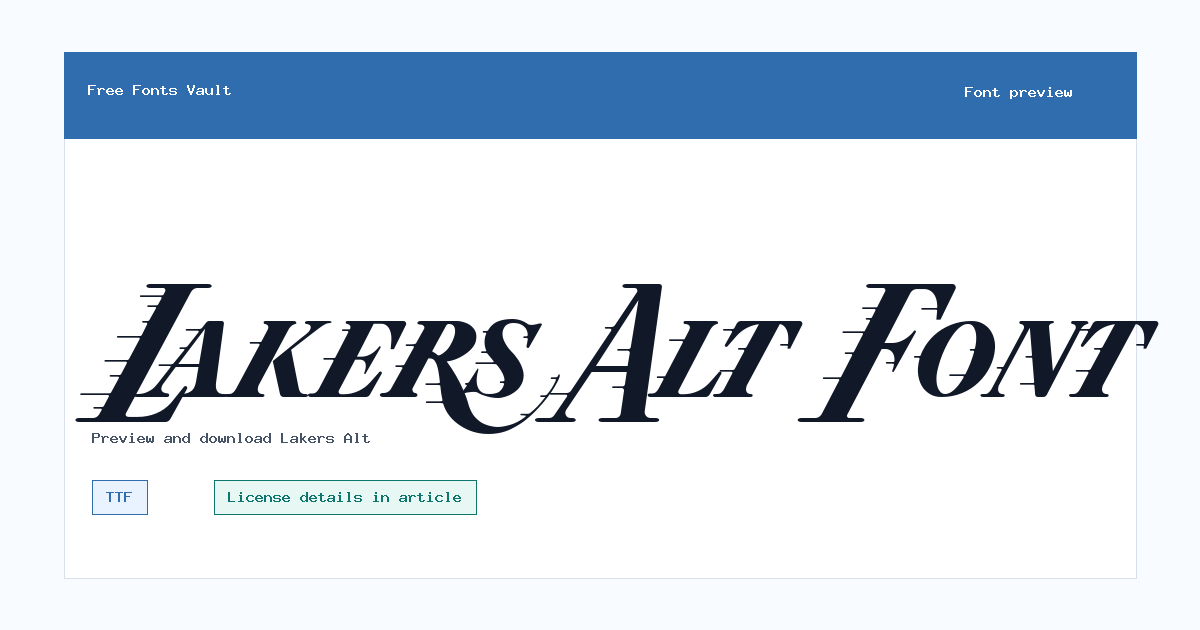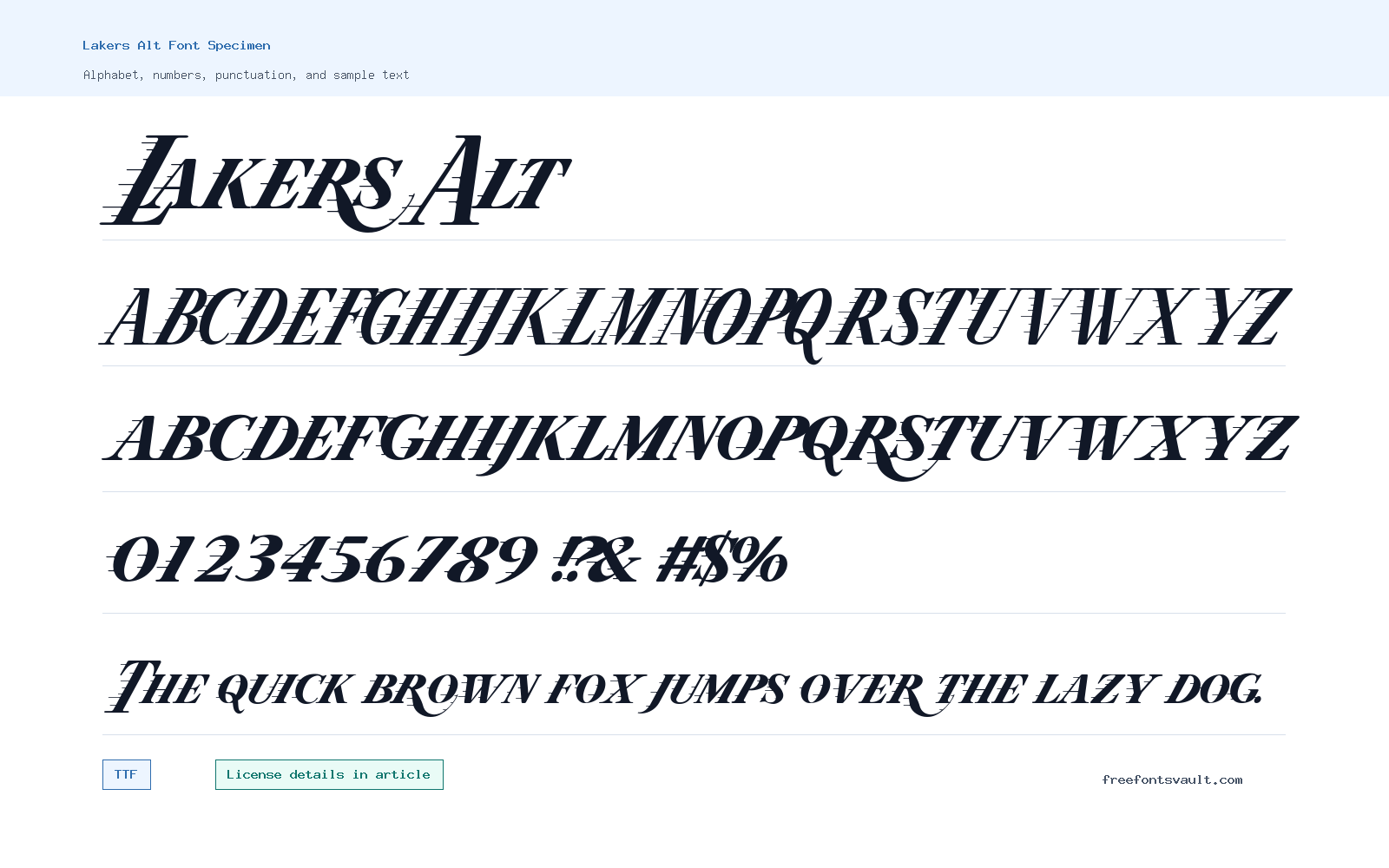
Lakers Alt
Lakers Alt Font
Lakers Alt is a display-style TrueType font for short, bold text with a sports-inspired feel. It is best for large words, graphic headings, stickers, banners, thumbnails, and fan-style mockups where the lettering is the main visual element.
About Lakers Alt Font
• Sports-inspired display look for large short text.
• Best paired with a plain sans serif for captions and body copy.
• Sports-style titles, fan graphics, posters, banners, and thumbnails.
• Sticker text, jersey-inspired mockups, and bold name treatments.
• Personal design tests where the wordmark is the focus.
• Large preview text where spacing, punctuation, and numbers can be checked clearly.
Is Lakers Alt good for paragraphs?
No. It is better for short display text, posters, banners, stickers, and fan-style graphic headings.